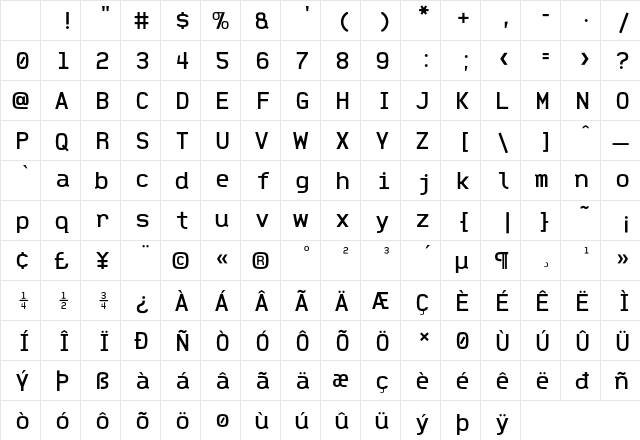
Complete FauxCRA Monospaced glyph index. Displaying only characters natively supported by FauxCRA Monospaced font.
FauxCRA uses fixed-width spacing throughout, giving it the structured, systematic character associated with coding environments and technical documentation.